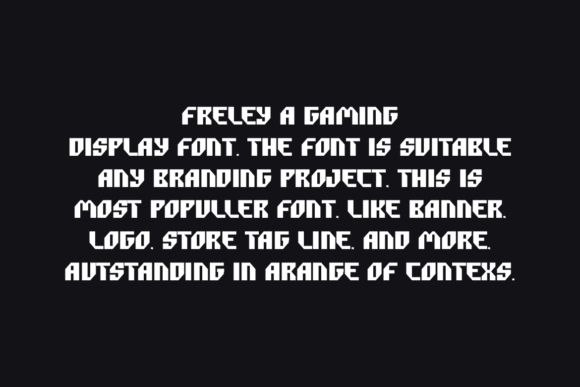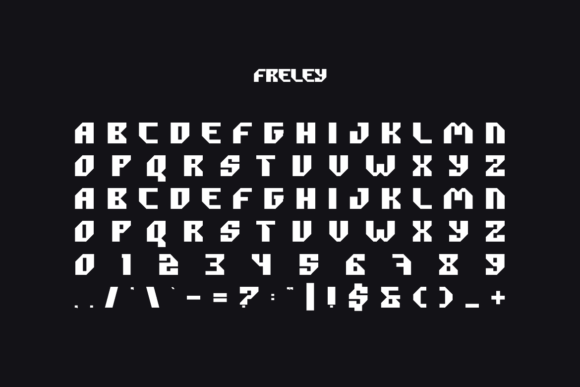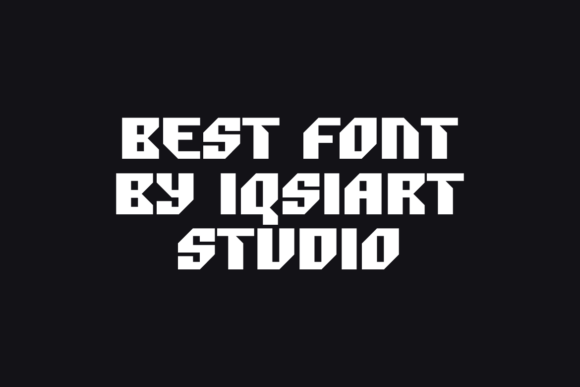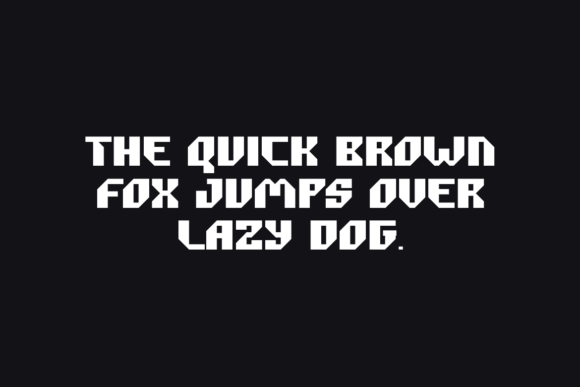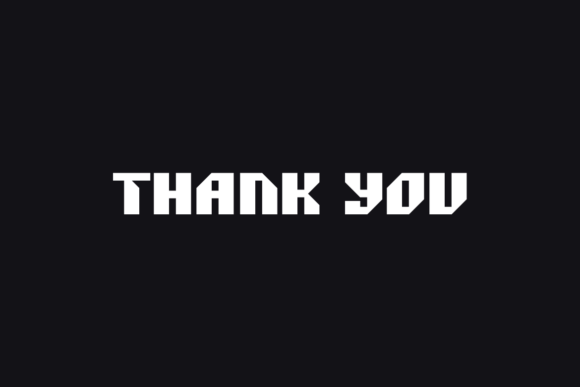
Introduction to Freley Font
Freley is a powerful and dynamic gaming display font that blends futuristic elements with a bold, angular structure.
Designed for esports, tech branding, digital media, and cyber-themed projects, this font brings a strong, high-energy presence to any design Its unique letterforms make it a standout choice for titles, banners, and logos.